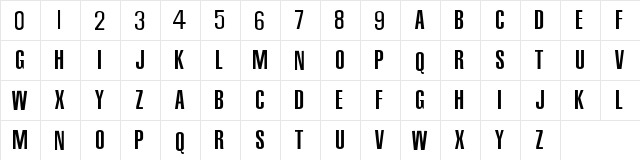
NBA Raptors Regular
Design Context for NBA Raptors Typeface
NBA Raptors offers clean, dependable letterforms without strong stylistic allegiance, making it a practical choice for designers who need flexibility.
Pro Tip: Use NBA Raptors in both headline and body roles to test its range before committing to a single application.